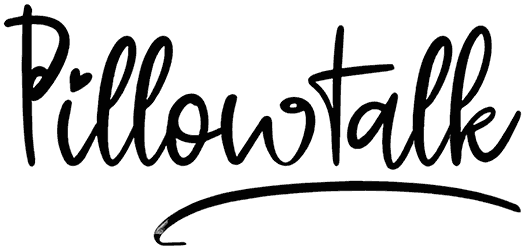
For any project you have in mind, this Valentine font can do well with its utmost lovable sense. The Heart Freaking Tastic font is a perfect alternative with a mixture of lower and uppercase letters to give a distinctive look to many posters, books, greeting cards, or wherever you need to add a dash of femininity to your text, despite the absence of numbers.
https://www.brittneymurphydesign.com/downloads/heart-freaking-tastic-font/Use the asterisk * character for a heart with an arrow through it.
Use the circumflex ^ character for a small solid heart.For example: Heart^Freaking^Tastic